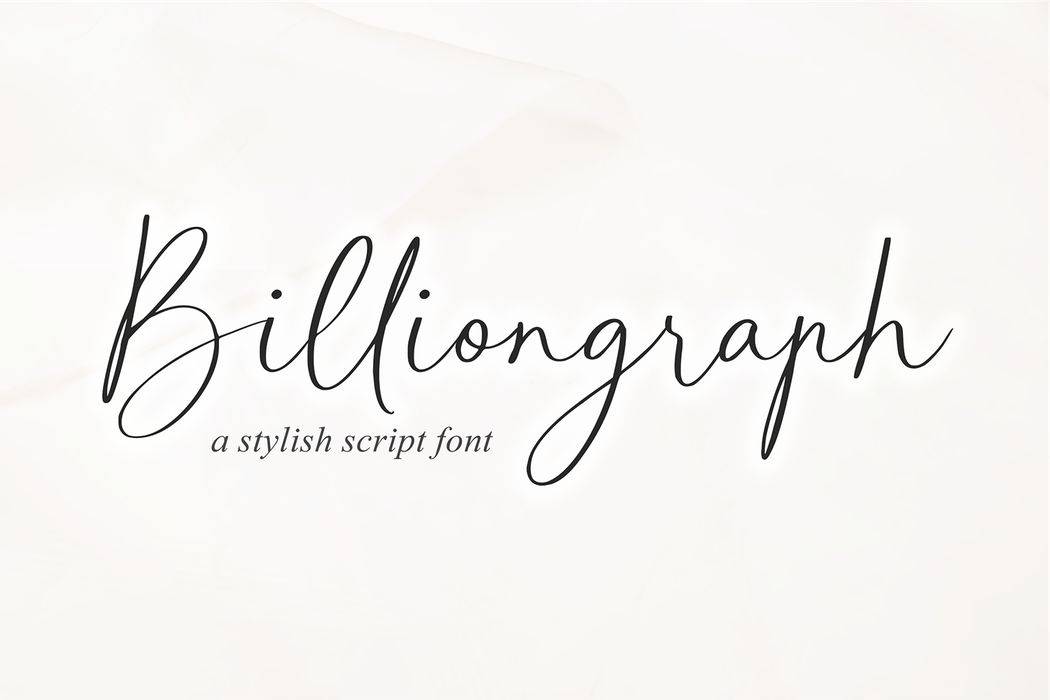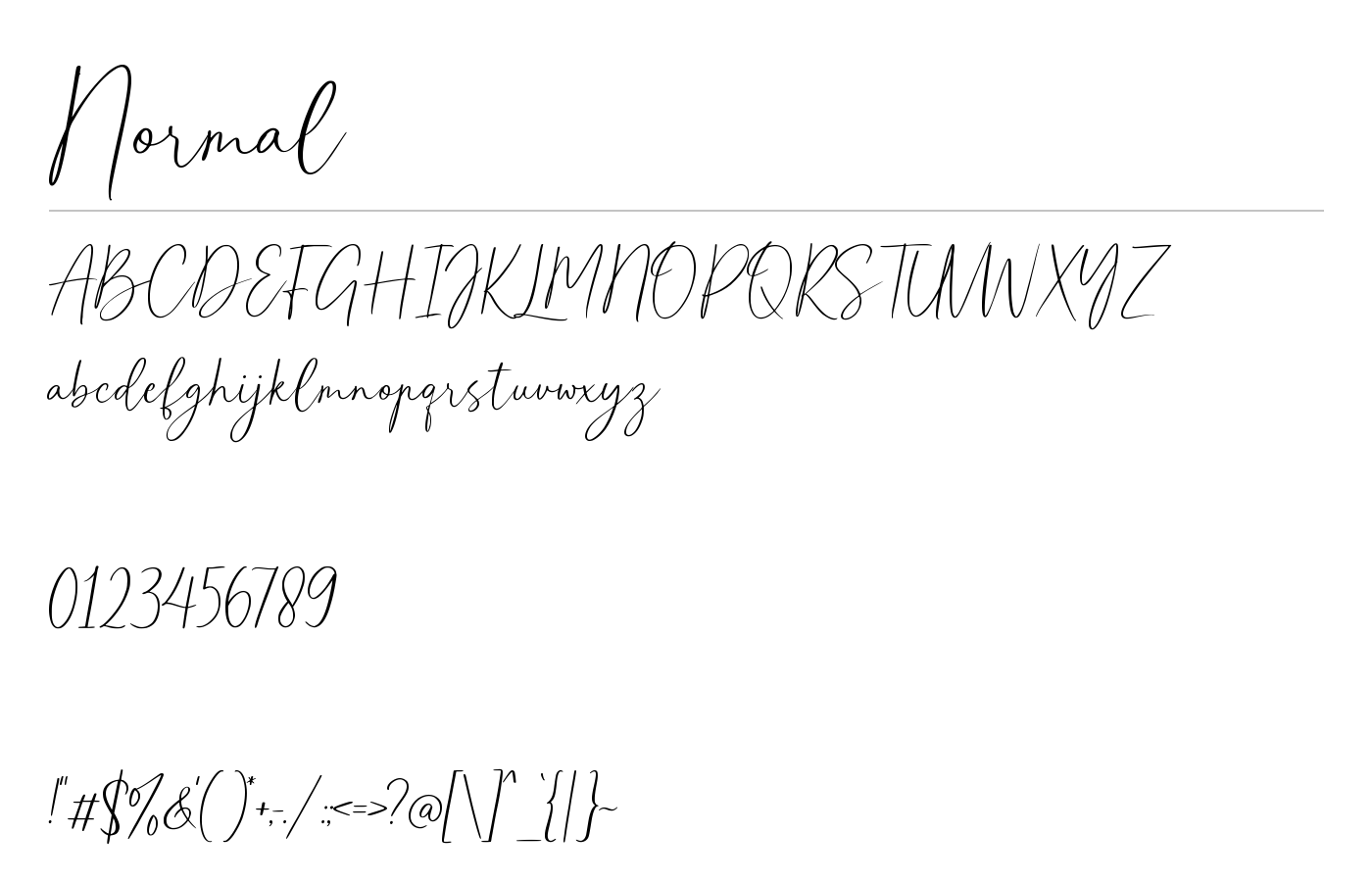
Billiongraph is a delicate, handwritten script font featuring tall, slender letterforms with a natural, flowing style. Its thin strokes and elegant curves give it a light, airy feel perfect for adding a personal, sophisticated touch to branding, invitations, and creative projects that seek a refined yet approachable look. This font works well for logos, headlines, and stylish editorial use where a graceful, contemporary handwritten vibe is desired.
Billiongraph Font